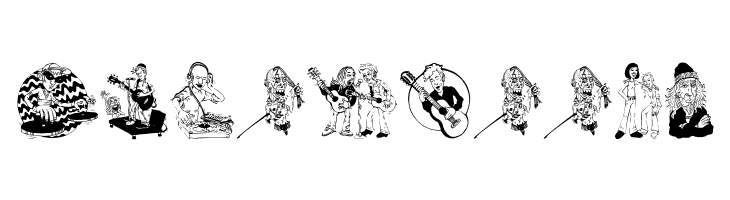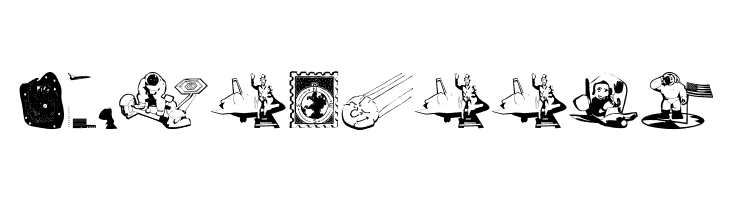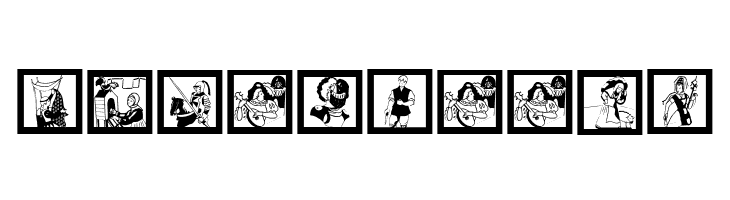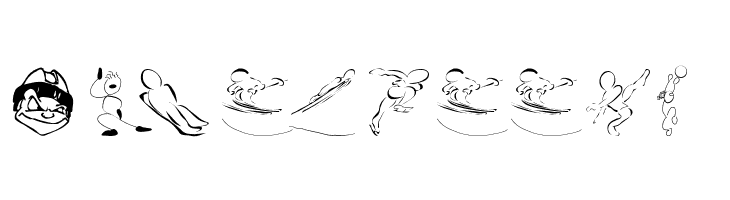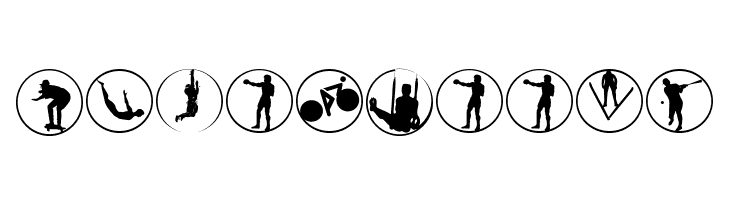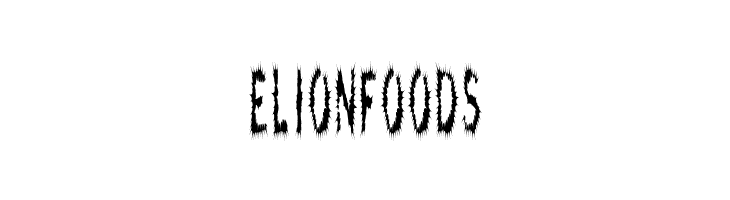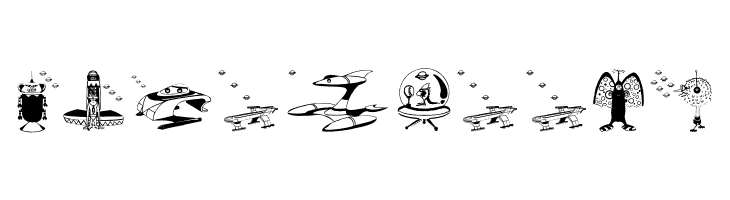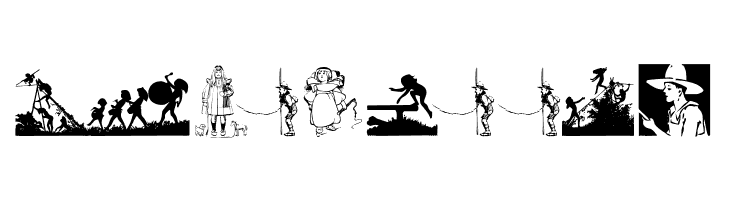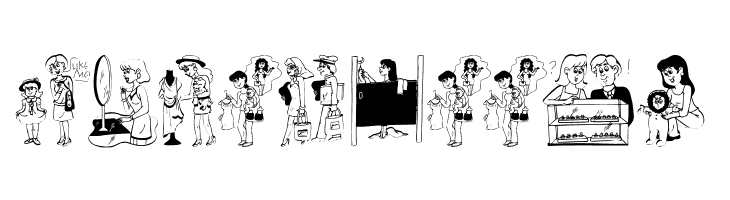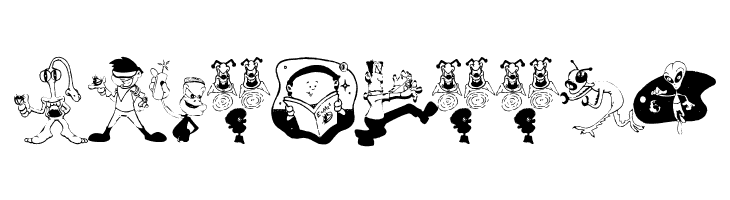
Cartoonish, music-themed decorative font with illustrated characters.
Ancient-themed dingbat font with detailed line art illustrations.
A decorative symbol font with astrological and cosmic illustrations.
Hand-drawn decorative font with planet and space motifs.
Cartoonish space-themed dingbat illustrations.
Cartoonish, musician-themed pictorial font.
Medieval-themed illustrative font with each character as a unique scene.
A pictorial winter-themed display font with hand-drawn illustrations for each character.
A decorative set of icons inspired by ancient Egyptian culture and mythology.
Cartoonish sports-themed dingbat font with energetic line drawings.
A retro-themed pictorial dingbat font with vintage illustrations.
A sports-themed pictogram font with athletic silhouettes.
A jagged, spiky font perfect for spooky and Halloween-themed designs.
Animal silhouette display font with bold, geometric shapes.
Whimsical animal-themed dingbat font with playful illustrations.
Bird-themed decorative font with each character depicted as a unique bird illustration.
Farm-themed dingbat font with detailed rural illustrations.
Energetic pictogram font with action-themed icons.
Comic-style, alien-themed decorative font with illustrated glyphs.
A pictorial, military-themed decorative font with each character as a unique illustrated figure.
A detailed, game-themed dingbat font with character and weapon silhouettes.
Playful dingbat font of space-themed cartoon characters and objects.
A decorative font with Roman-themed illustrations, ideal for creative projects.
Illustrative dingbat font with gardening and outdoor motifs.
Illustrative, playful font with child-themed scenes for each character.
A decorative dingbat font with jester-themed illustrations.
Illustrative font with shopping-themed scenes forming each character.
Cartoonish sci-fi themed display font with illustrated characters.
Cartoonish 1920s-themed pictorial font with illustrated characters and objects.
Hand-drawn, museum-themed decorative font with illustrated characters.
Cartoonish, myth-themed illustrative font with unique character drawings.
A collection of whimsical space-themed illustrations featuring unique and imaginative creatures.
Ornate cherub and religious-themed dingbat illustrations.